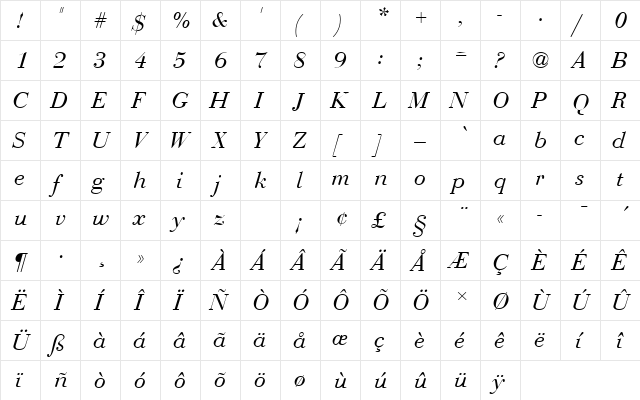
BauerBodDRegItaRo1 Regular Font Preview
BauerBodDRegItaRo1 Regular
Design Context for BauerBodDRegItaRo1 Typeface
BauerBodDRegItaRo1 takes a measured approach to typography — its balanced proportions and neutral character make it a reliable workhorse for both digital and print work.
Pro Tip: Use BauerBodDRegItaRo1 in both headline and body roles to test its range before committing to a single application.